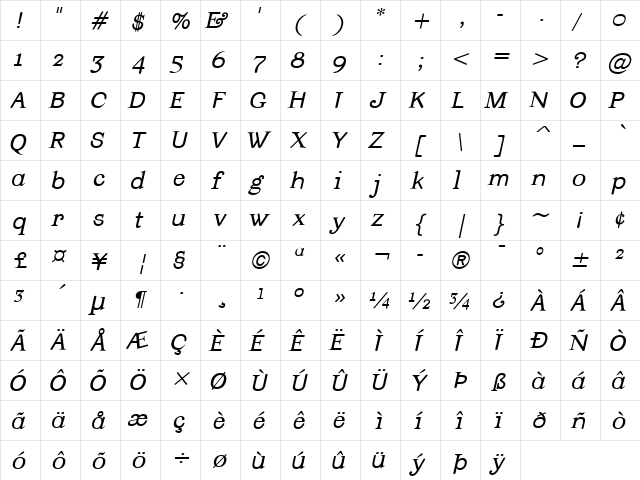
Andromeda Medium Italic Font Preview
Andromeda Medium Italic
Andromeda Medium Italic Font Details
Design Context for Andromeda Typeface
Andromeda is a composed and adaptable typeface that performs quietly and consistently across a wide range of design contexts. Its italic angle brings a sense of urgency and motion to the letterforms.
Pro Tip: Try Andromeda for annotation and caption copy alongside an upright companion — the contrast in angle creates a dynamic but ordered typographic system.